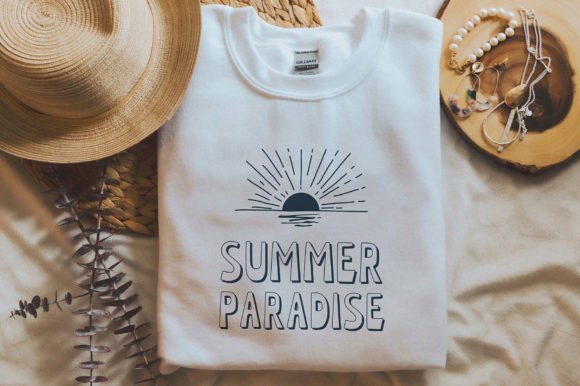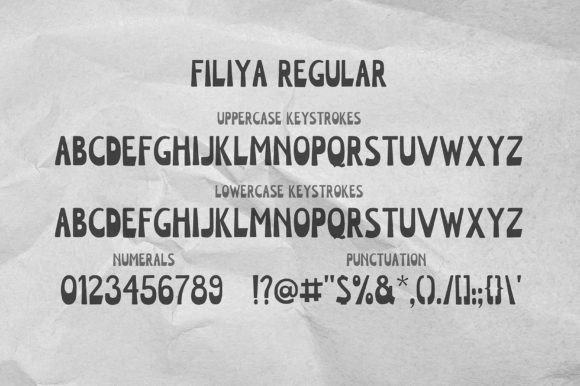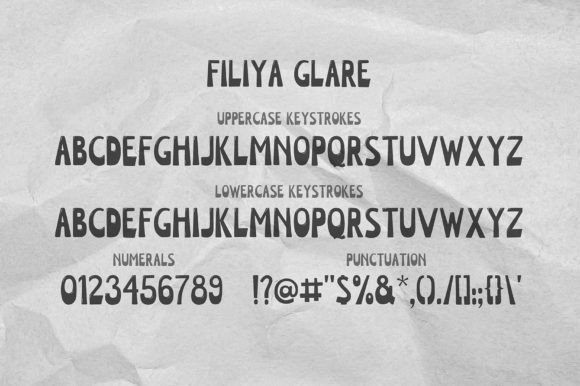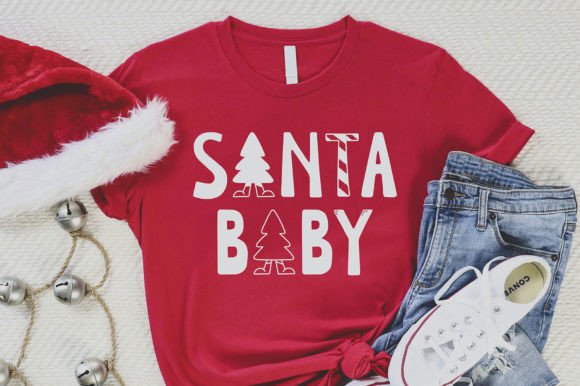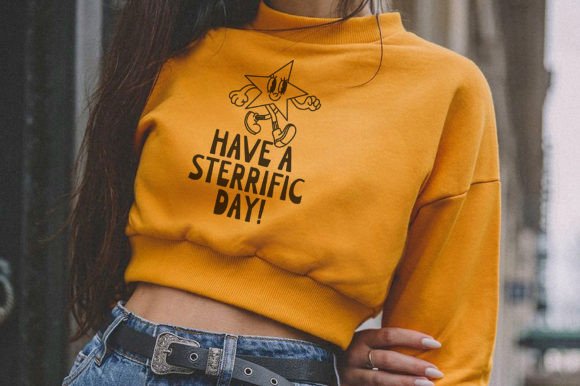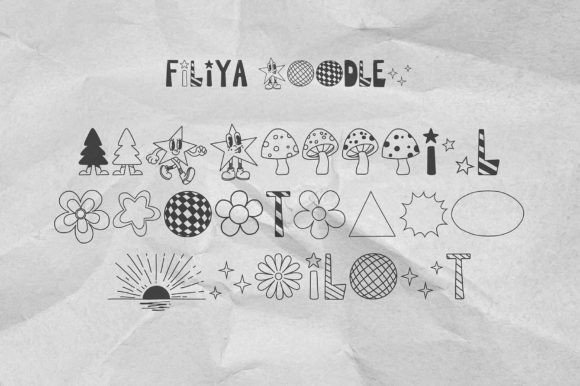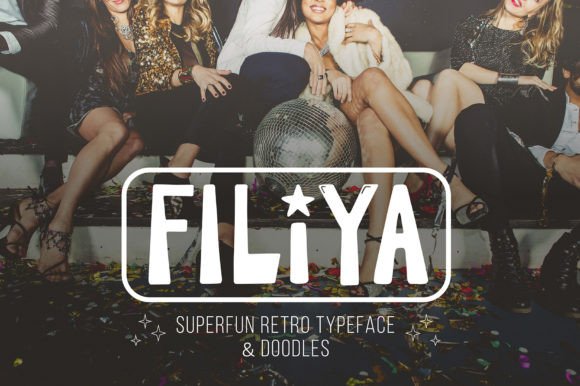
Introducing Filiya Font: The Funky Handwritten Display Font for Holiday Designs
Are you tired of using the same old fonts for your holiday designs? Look no further! Say hello to Filiya, a funky handwritten display font that’s perfect for adding a touch of retro disco fun to your creations. Inspired by the 1970s, Filiya is a lovely font that’s sure to make your designs stand out.
The Story Behind Filiya Font
Filiya is a carefully crafted font that draws inspiration from the iconic typography of the 1970s. The font’s creator aimed to capture the essence of the era’s funky and playful vibe, resulting in a unique and eye-catching display font. With Filiya, you can add a dash of nostalgia to your holiday designs and make them truly unforgettable.
Key Features of Filiya Font
- Funky Handwritten Style: Filiya boasts a fun and playful handwritten style that’s perfect for holiday designs, party invitations, and festive greeting cards.
- Retro Disco Inspiration: The font’s 1970s inspiration gives it a distinct retro vibe that’s sure to bring back memories of disco nights and funky fashion.
- Display Font: Filiya is designed as a display font, making it ideal for headlines, titles, and short phrases.
- Easy to Read: Despite its playful nature, Filiya remains easy to read, ensuring that your message gets across clearly.
Uses for Filiya Font
Filiya’s versatility makes it suitable for a wide range of design projects, including:
- Holiday Designs: Use Filiya to create eye-catching Christmas cards, Halloween party invitations, or Thanksgiving-themed graphics.
- Social Media Graphics: Add a touch of personality to your social media posts with Filiya’s funky and playful style.
- Branding and Packaging: Filiya can add a unique and memorable touch to your brand’s packaging and marketing materials.
- Crafting and DIY Projects: Filiya is perfect for crafters and DIY enthusiasts looking to add a personal touch to their projects, such as handmade cards, gift tags, and scrapbooking.
Tips for Using Filiya Font
To get the most out of Filiya, here are some tips to keep in mind:
- Use it as a Headline Font: Filiya is designed to grab attention, making it perfect for headlines and titles.
- Experiment with Colors: The font’s retro vibe pairs well with bright and bold colors, so don’t be afraid to get creative!
- Mix and Match with Other Fonts: Combine Filiya with other fonts to create a unique and visually appealing design.
In conclusion, Filiya Font is a fantastic addition to any designer’s toolkit. Its funky handwritten style, retro disco inspiration, and versatility make it perfect for a wide range of design projects. Whether you’re a professional designer or a crafter looking for a unique touch, Filiya is sure to bring a smile to your face and a touch of nostalgia to your creations. So why not give Filiya a try and add some retro disco fun to your holiday designs?